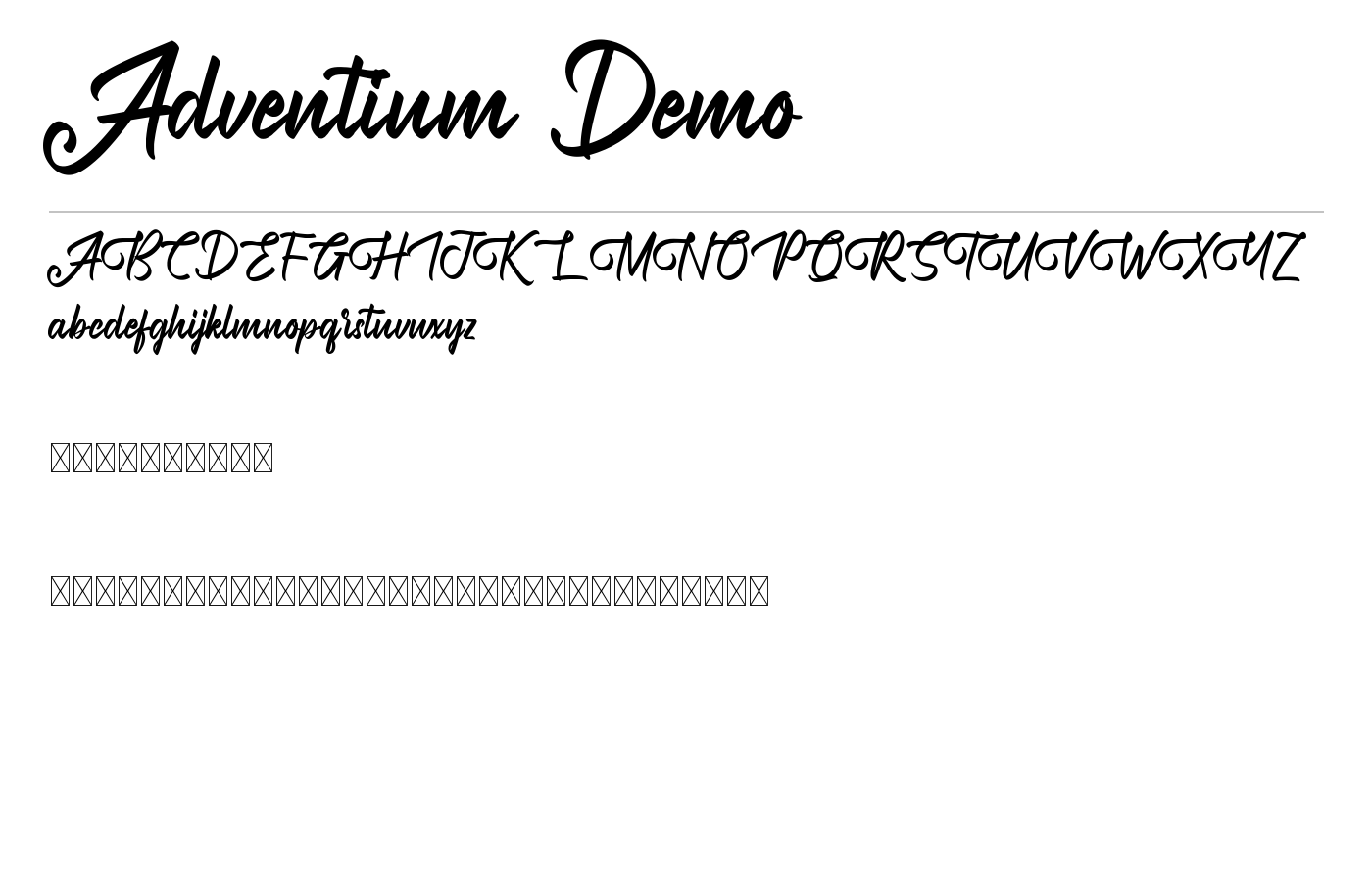
Adventium Demo is a lively, modern script font featuring a flowing, handwritten style with smooth, rounded strokes and moderate contrast. Its elegant yet casual vibe makes it perfect for creative branding, invitations, and stylish headlines where a personal touch and approachable flair are desired. This font works well to convey friendliness and creativity, adding charm and personality to design projects.
Adventium Demo Font
About Adventium Demo Font